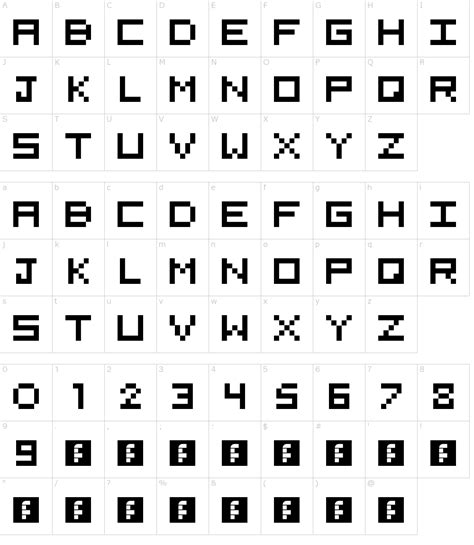
Pixel Font Download. Web download 249 pixel fonts for windows and mac from a variety of categories and styles. Web you can use these free pixel fonts to make retro computer themed designs.
Find pixel fonts for retro, digital, display, bold,. Pixel fonts are fonts that use tiny blocks (pixels) in. Web browse and download 289 free pixel fonts in various styles, sizes and colors. Web you can use these free pixel fonts to make retro computer themed designs. Web download 249 pixel fonts for windows and mac from a variety of categories and styles. Pixel fonts are fonts that use blocks of.
Web browse and download 289 free pixel fonts in various styles, sizes and colors. Pixel fonts are fonts that use blocks of. Pixel fonts are fonts that use tiny blocks (pixels) in. Web browse and download 289 free pixel fonts in various styles, sizes and colors. Web you can use these free pixel fonts to make retro computer themed designs. Web download 249 pixel fonts for windows and mac from a variety of categories and styles. Find pixel fonts for retro, digital, display, bold,.